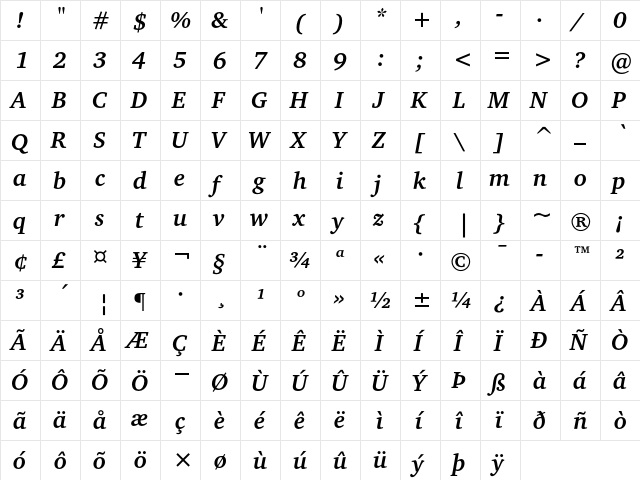
Charter ITC Bold Italic Font Preview
Design Context for Charter ITC Typeface
Charter ITC takes a measured approach to typography — its balanced proportions and neutral character make it a reliable workhorse for both digital and print work. The dynamic lean of this cut emphasises speed and emphasis in any layout. The heavy weight commands attention and anchors typographic hierarchies.
Pro Tip: Try Charter ITC for annotation and caption copy alongside an upright companion — the contrast in angle creates a dynamic but ordered typographic system.